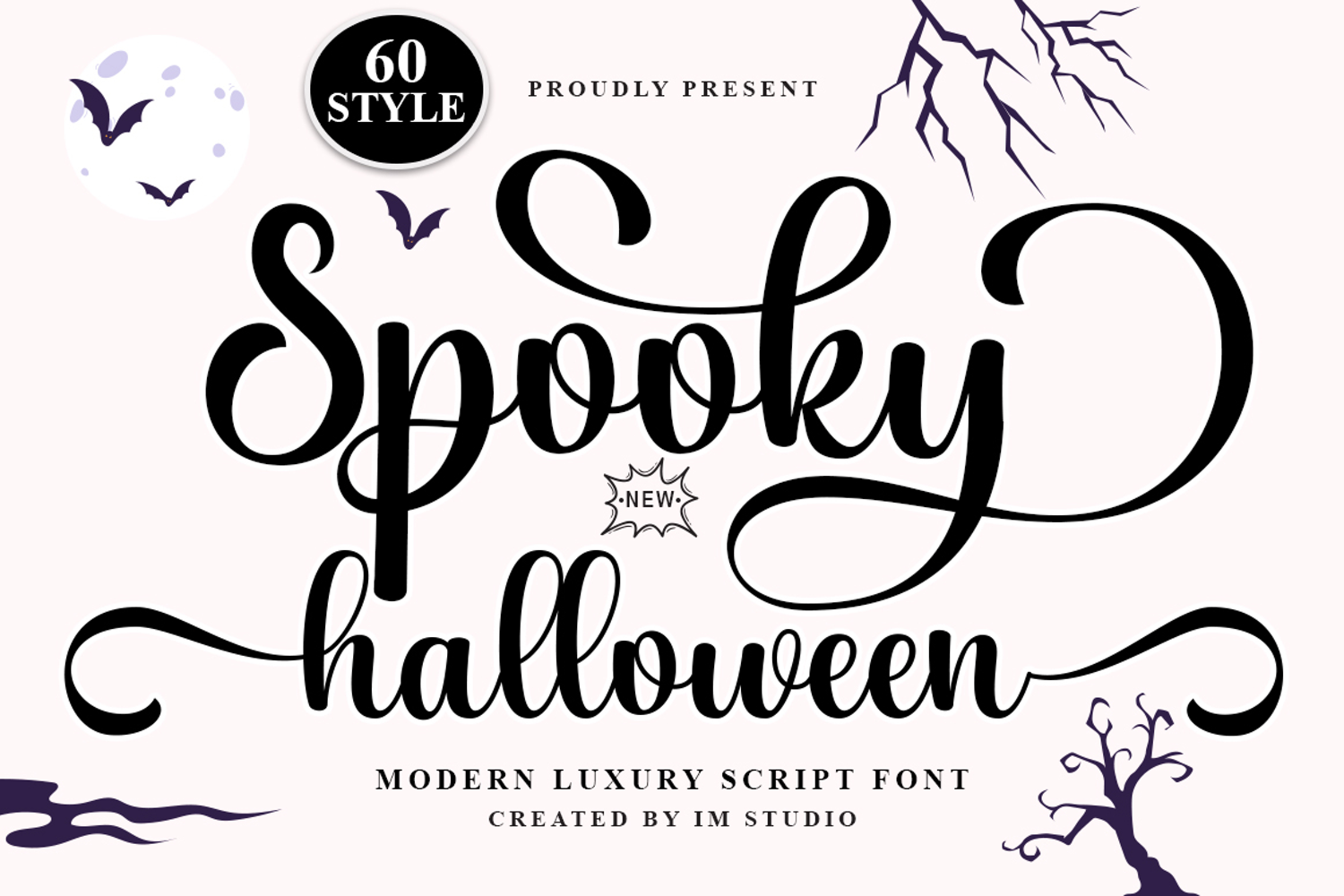
Spooky Halloween - Family Font In 60 Styles
Introducing Spooky Halloween Typeface – a bold, fashion-forward font family featuring 60 striking styles, designed to bring a confident, modern edge to your creative work.
With its sleek structure, refined curves, and subtle glamor, Spooky Halloween blends timeless sophistication with contemporary versatility. Each style is thoughtfully crafted to deliver high-impact visuals, featuring graceful letterforms, smooth ligatures, and stylish alternates for ultimate design flexibility.
Perfect for everything from luxury branding and fashion labels to editorial layouts, packaging, restaurant menus, and event invitations, Spooky Halloween effortlessly elevates any design with a polished, upscale feel.
- 60 Unique Styles – including Regular, Italic, Bold, Outline, Wrap, Add Nodes, Smart Corner, Expanded, Condensed and more.
- Full Character Set – Uppercase & Lowercase
- Alternates & Ligatures – for creative custom looks